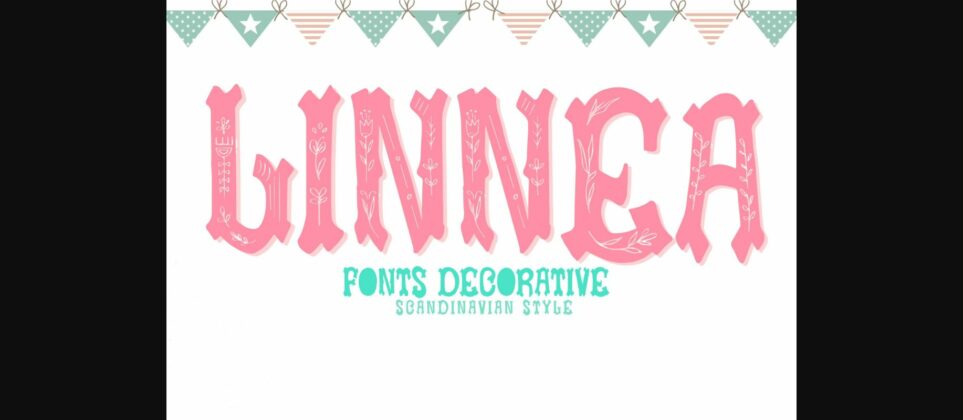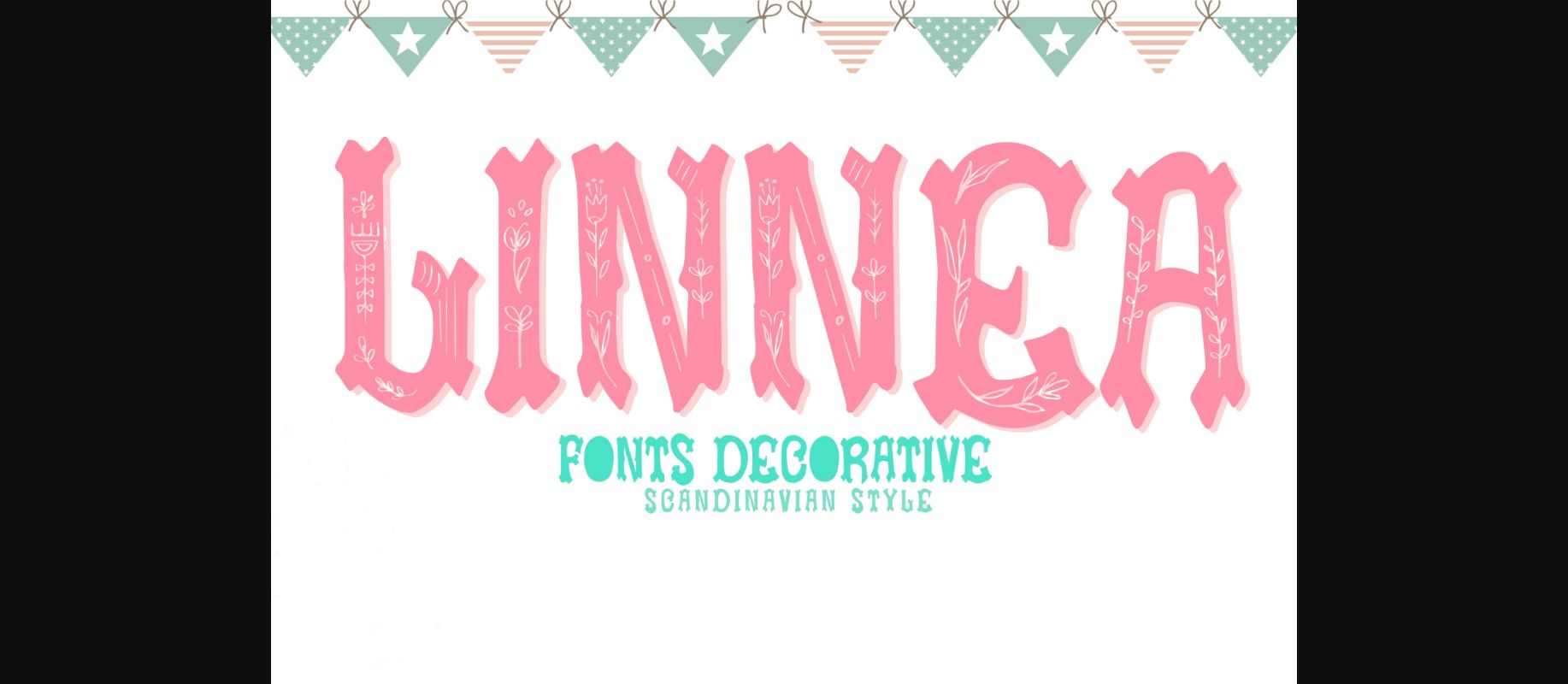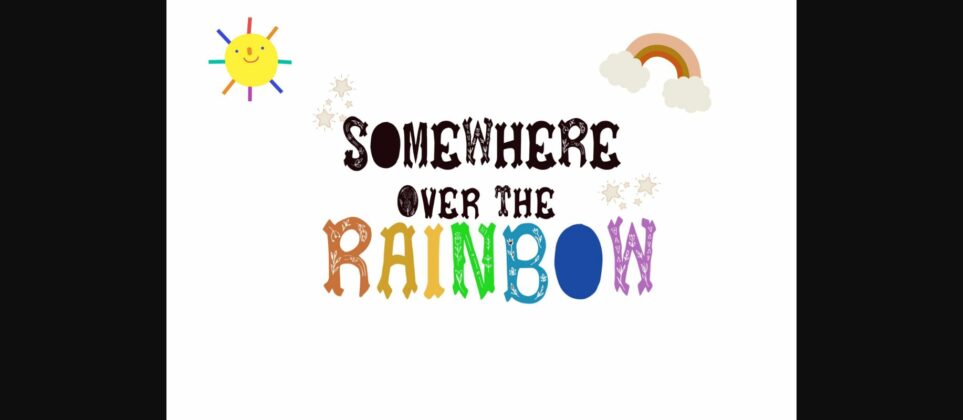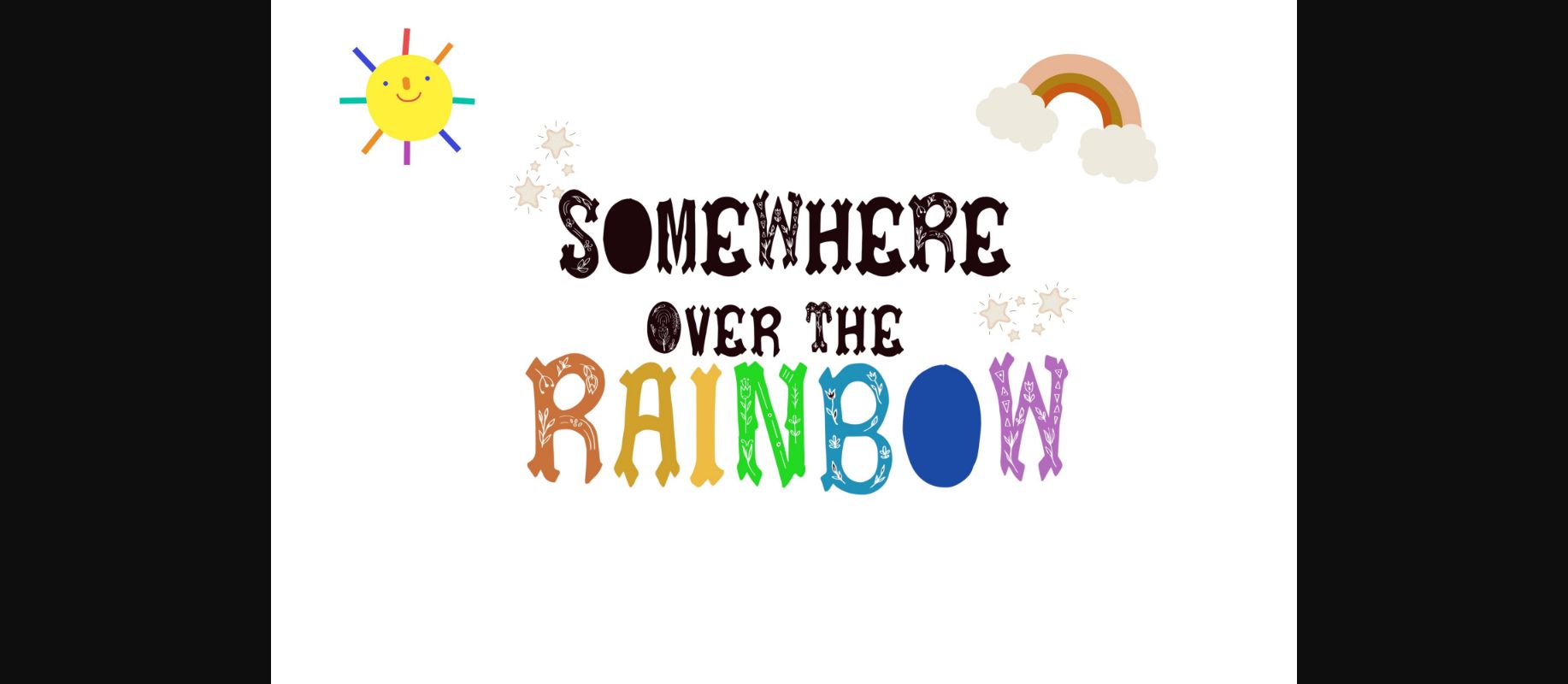
About Linnea Font
Linnea is a bold and thick lettered decorative font. It embodies playfulness and authenticity and is the perfect choice for any children activity or school project.